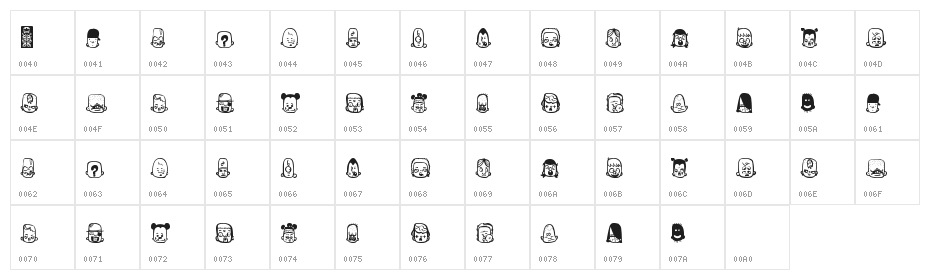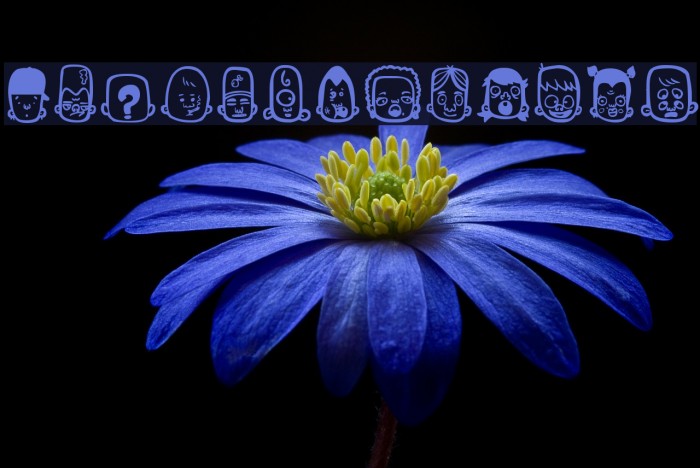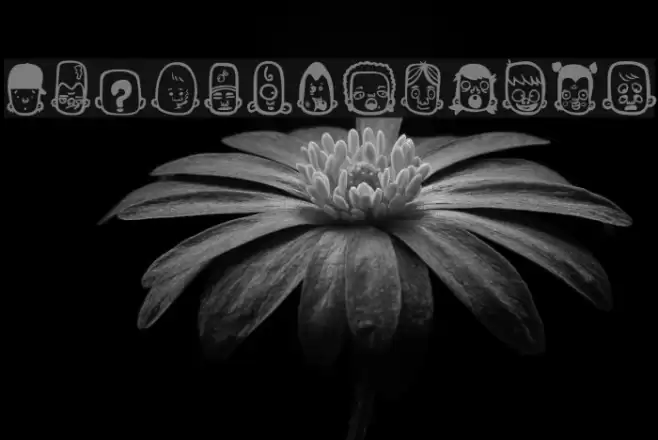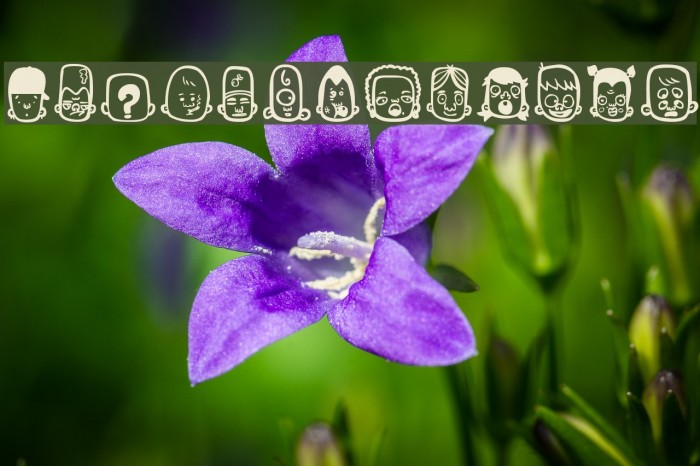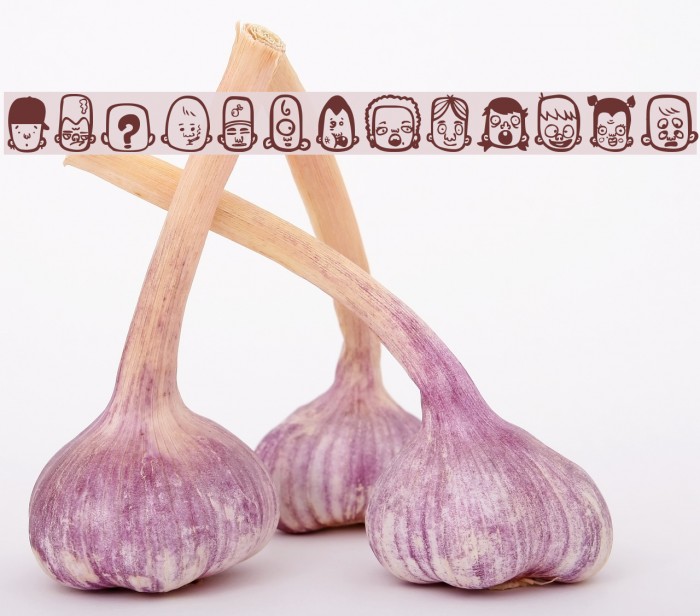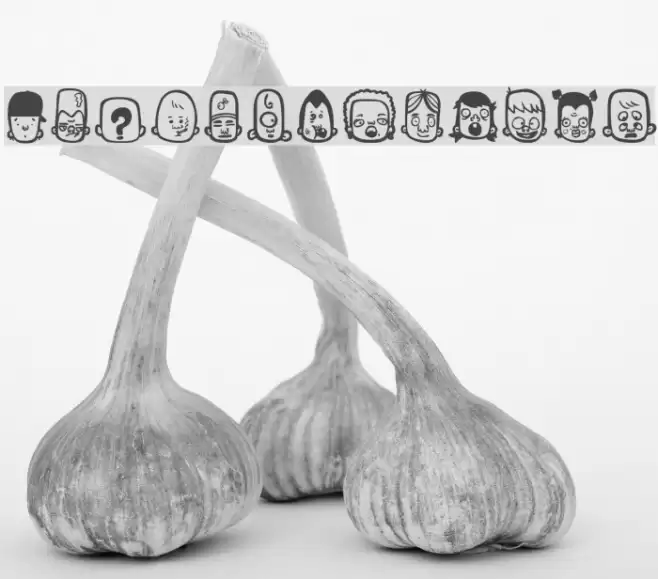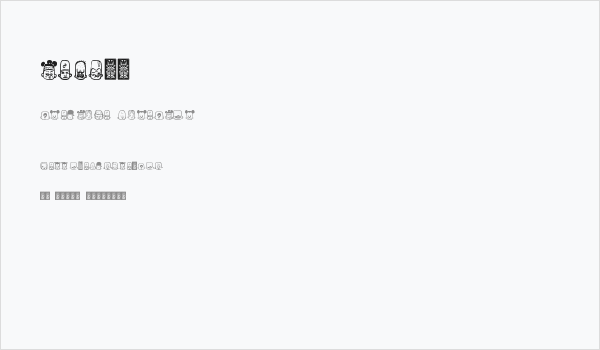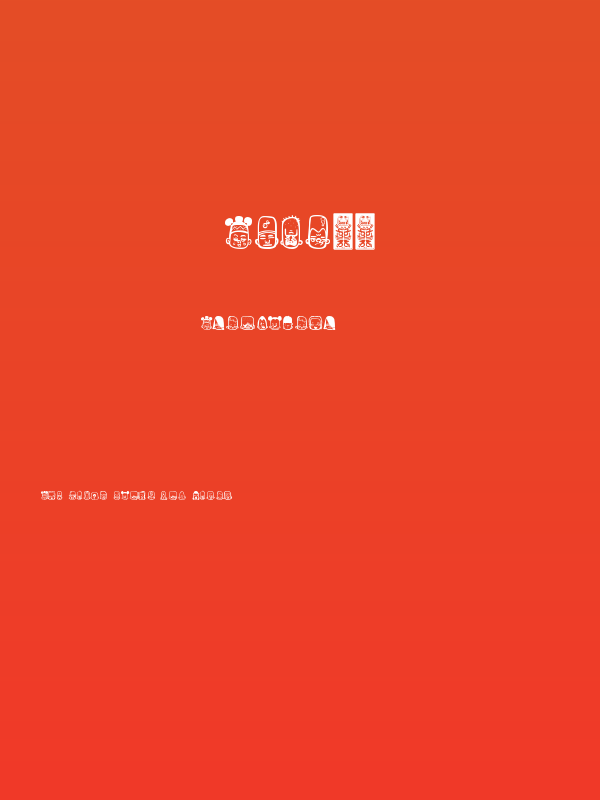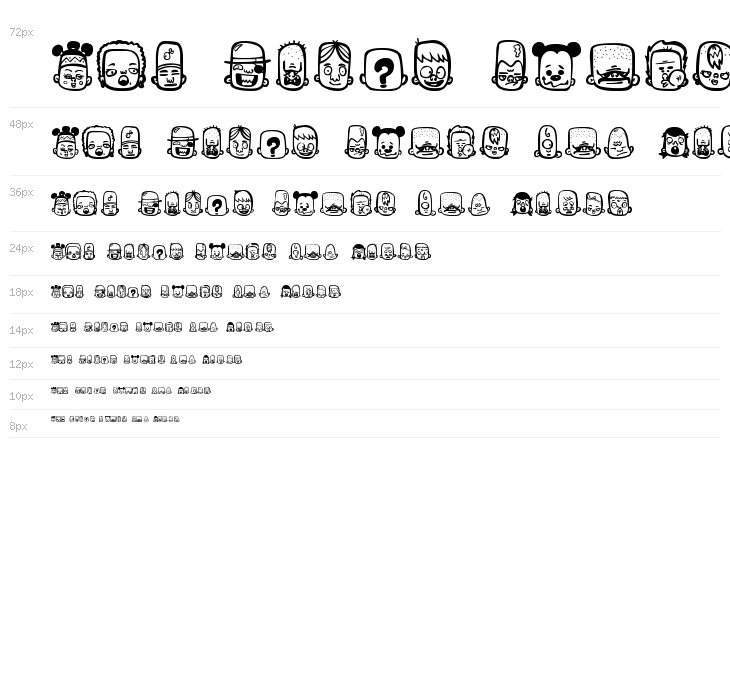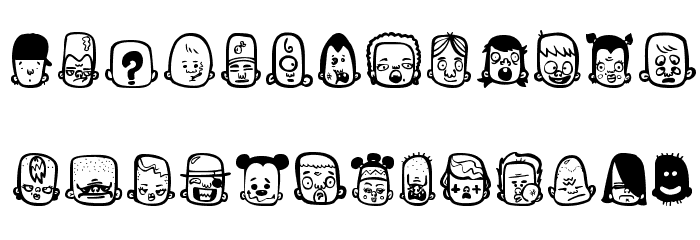
Teubé2 Font
Teubé2 Description
A highly decorative and playful font where each character is represented by a unique cartoon face or totem-like symbol, featuring bold outlines and whimsical expressions.
| Overall Style | Playful, Whimsical, Decorative |
| Use Case | Logos, Headlines, Posters, Themed event materials |
| Proposed Projects | Children’s books, party invitations, comic titles, playful branding, educational materials. |